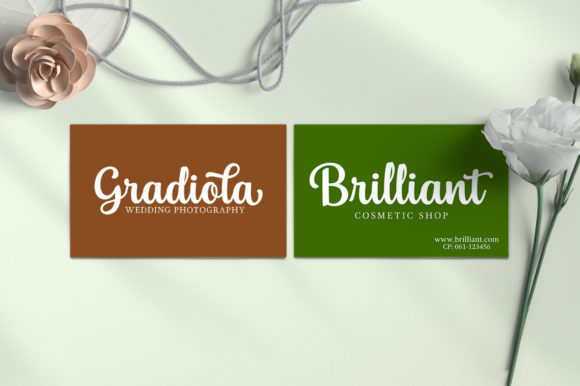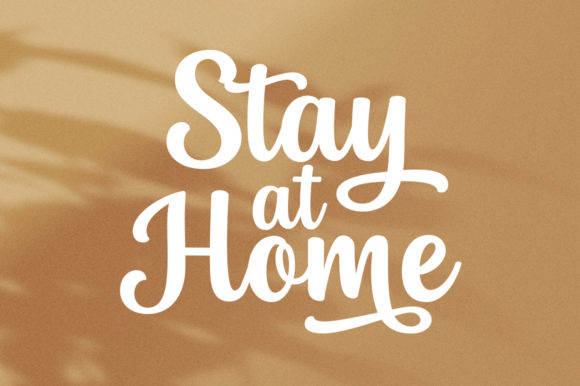
Grandista Font
db-ku.com - Script & Handwritten -- Grandista simplifies elegance into one truly outstanding handwritten font. Whether you’re looking for fonts for Instagram or calligraphy scripts for DIY projects, this font will turn any creative idea into a true piece of art!